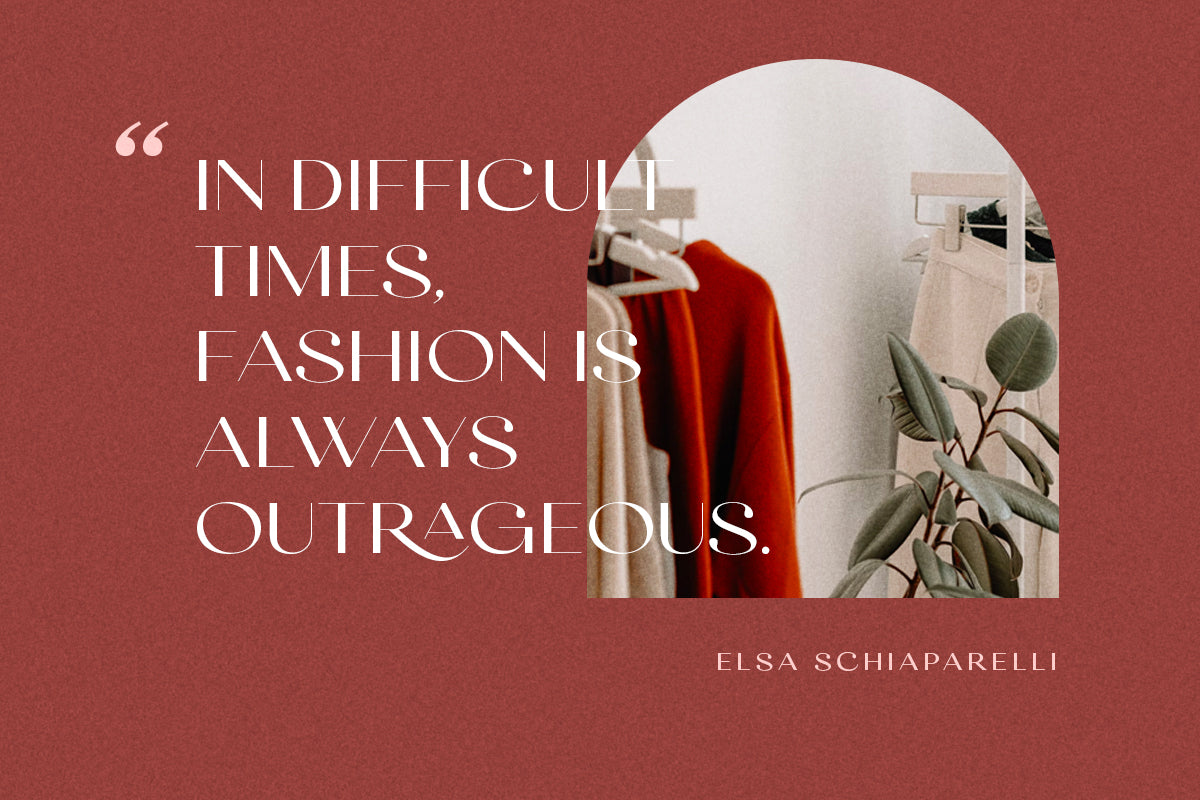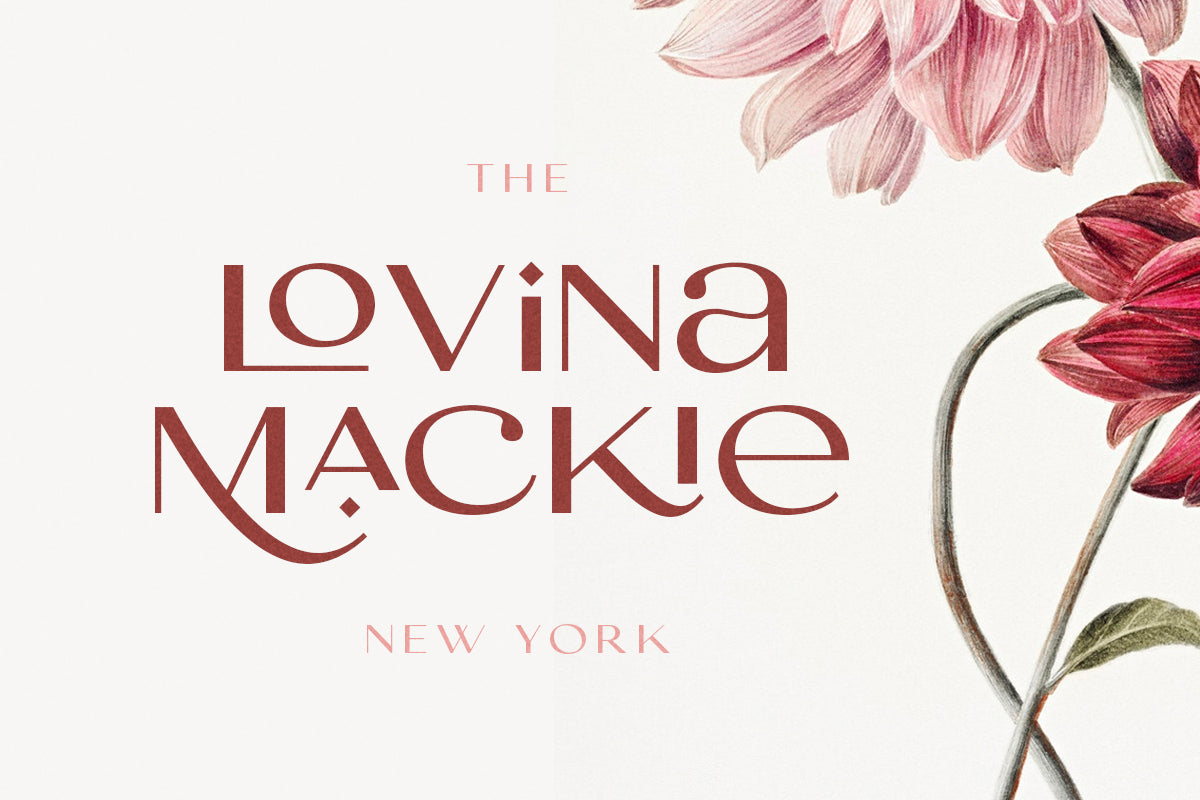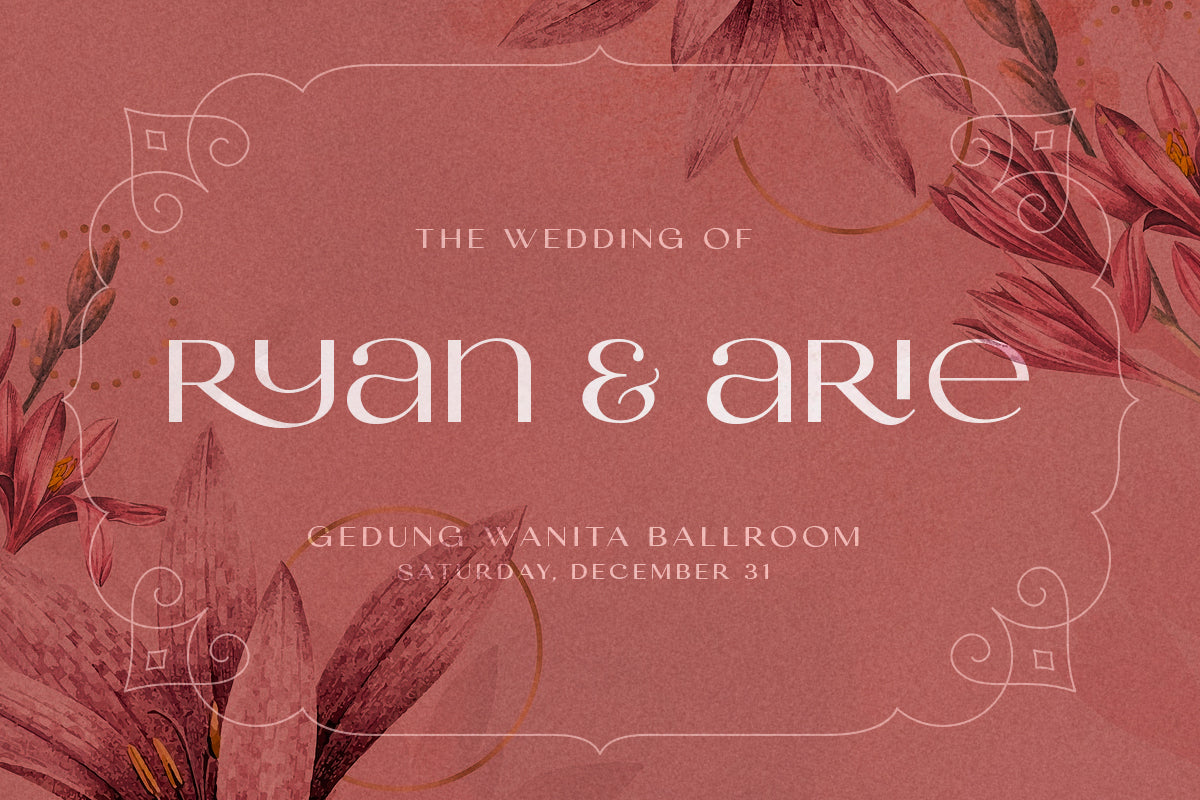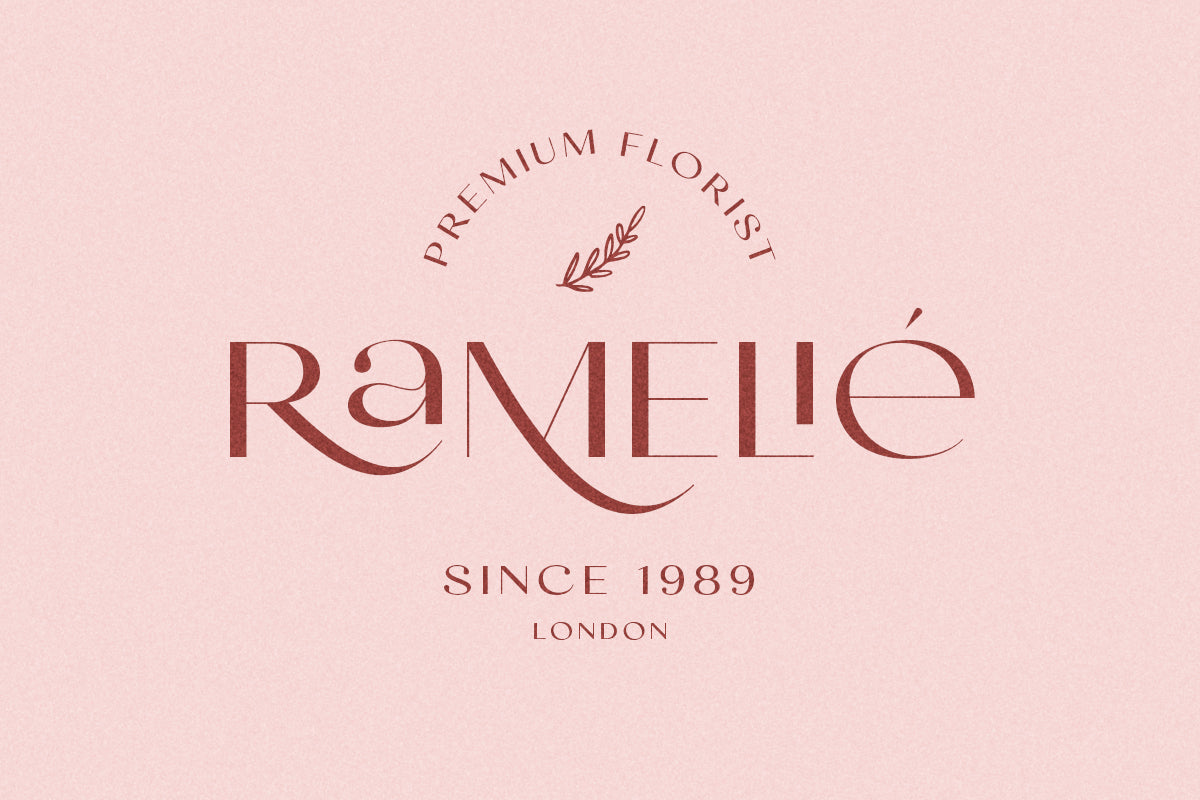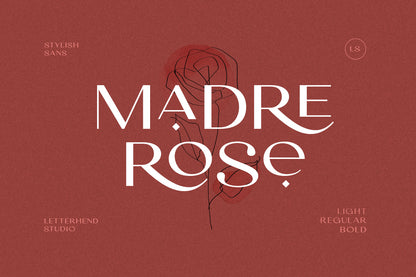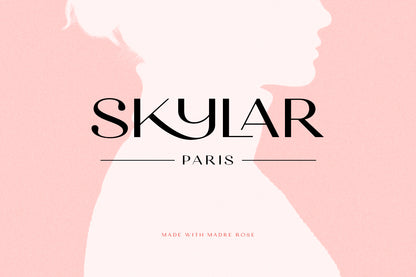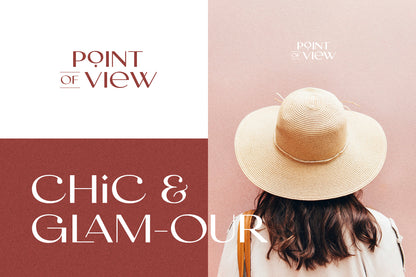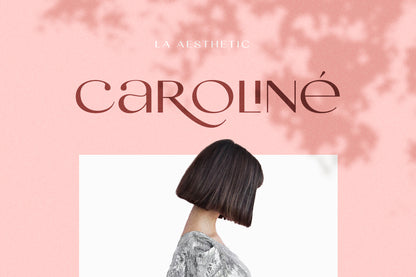
Madre Rose - Stylish Sans
Madre Rose is a sophisticated sans serif with 3 weight style to choose from, bold, thin and regular. It has many beautiful ligatures which you can play around to match your project, whether for a standout headline, or for a tagline, you name it. The unique letterform makes this font one of a kind! Perfectly to be applied to the other various formal forms such as invitations, labels, logos, magazines, books, greeting / wedding cards, packaging, fashion, make up, stationery, novels, labels or any type of advertising purpose.
3 weight style
uppercase & lowercase
numbers and punctuation
multilingual
alternates & ligatures